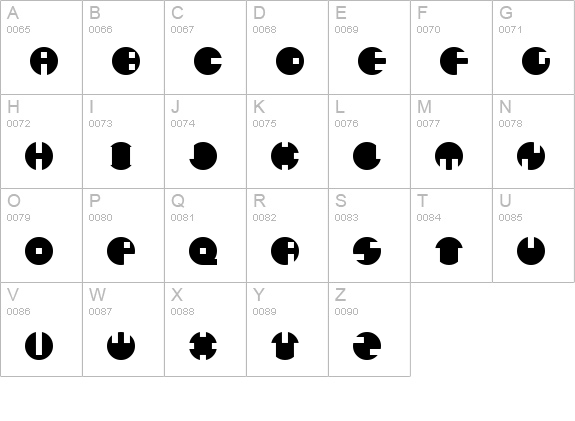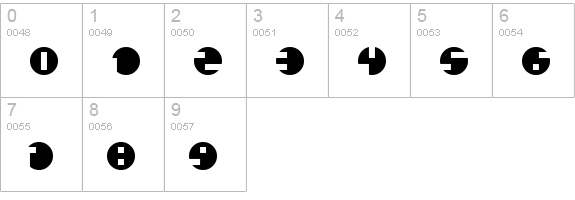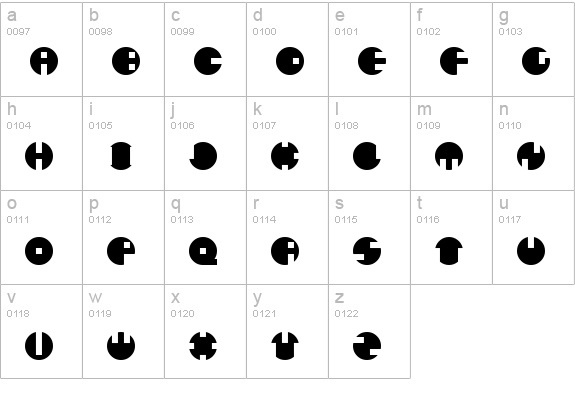
Catharsis Circular Font Details
Catharsis Circular is a modern and innovative font that exudes elegance and sophistication. With its clean lines and rounded edges, this font is perfect for adding a touch of modernity to any design project. Whether you are creating a sleek logo, eye-catching headlines, or stylish branding materials, Catharsis Circular is sure to make a statement. The versatility of Catharsis Circular font allows it to be used in a variety of design contexts, from branding and advertising to packaging and signage. Its unique circular elements give it a distinctive look that sets it apart from other fonts. Best of all, Catharsis Circular is available for free download at FontsMarket.com. This means that you can add this stunning font to your collection without any cost, making it a valuable resource for designers and creatives looking to enhance their projects with a touch of modern sophistication. Don't miss out on the opportunity to elevate your designs with the stylish and contemporary Catharsis Circular font.